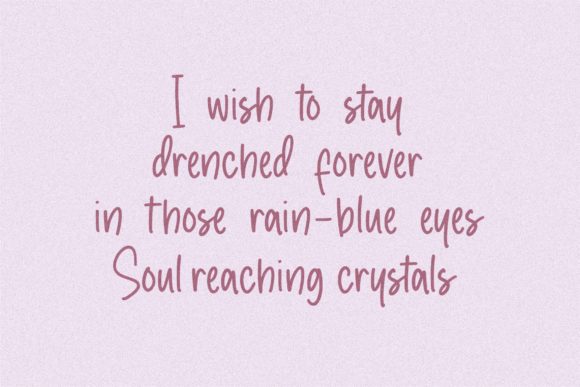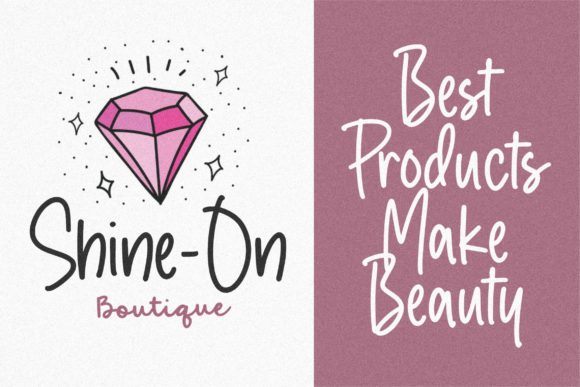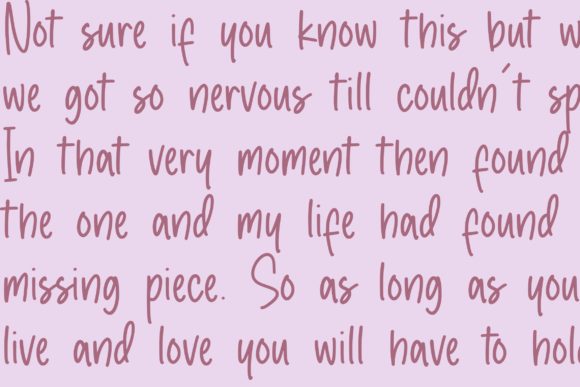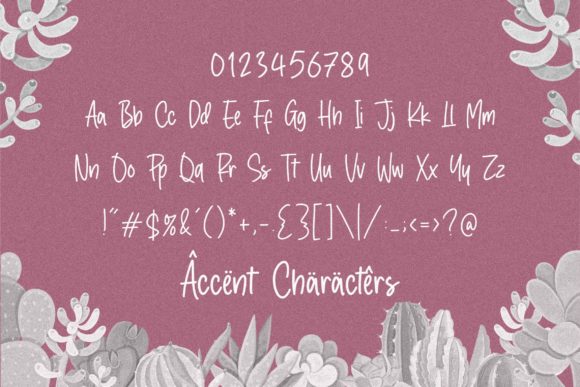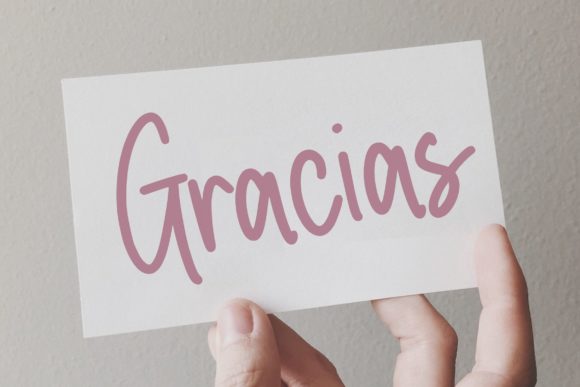
Introducing Crystal Angles Font: The Sweet and Relaxed Handwritten Font for Creative Projects
Are you a designer or crafter looking for a font that can add a touch of sweetness and relaxation to your creative projects? Look no further than Crystal Angles Font. This beautiful handwritten font is perfect for a variety of applications, from product packaging and branding projects to magazines, social media, wedding designs, and more.
What is Crystal Angles Font?
Crystal Angles Font is a carefully crafted handwritten font that exudes a sense of calmness and serenity. Its sweet and relaxed style makes it an ideal choice for designers and crafters who want to add a personal touch to their work. The font’s unique and elegant feel is sure to capture the attention of your audience and leave a lasting impression.
Key Features of Crystal Angles Font
- Sweet and Relaxed Style: Crystal Angles Font boasts a beautiful, laid-back style that is perfect for creating a warm and inviting atmosphere in your designs.
- Handwritten Elegance: The font’s handwritten feel adds a touch of elegance and sophistication to any project.
- Versatile: Crystal Angles Font can be used for a wide range of applications, from product packaging and branding projects to magazines, social media, wedding designs, and more.
- Easy to Read: The font’s clear and legible design ensures that your message is conveyed effectively, making it perfect for body text and headings.
Use Cases for Crystal Angles Font
Crystal Angles Font is an incredibly versatile font that can be used in a variety of creative projects. Here are some use cases to get you started:
- Product Packaging: Add a touch of sweetness and elegance to your product packaging with Crystal Angles Font.
- Branding Projects: Use Crystal Angles Font to create a unique and memorable brand identity that sets you apart from the competition.
- Magazines and Editorial Design: Crystal Angles Font is perfect for magazine and editorial design, adding a touch of sophistication and elegance to your layouts.
- Social Media: Use Crystal Angles Font to create engaging and eye-catching social media graphics that capture the attention of your audience.
- Wedding Designs: Crystal Angles Font is a beautiful choice for wedding designs, adding a touch of romance and elegance to your wedding stationery and decor.
Why Choose Crystal Angles Font?
With so many fonts to choose from, why should you choose Crystal Angles Font? Here are just a few reasons:
- Unique and Elegant: Crystal Angles Font is a one-of-a-kind font that adds a touch of elegance and sophistication to any project.
- High-Quality Design: The font is carefully crafted with attention to detail, ensuring a high-quality design that looks great in any application.
Crystal Angles Font is a beautiful and versatile handwritten font that is perfect for a wide range of creative projects. Its sweet and relaxed style makes it an ideal choice for designers and crafters who want to add a personal touch to their work. With its unique and elegant feel, Crystal Angles Font is sure to capture the attention of your audience and leave a lasting impression.